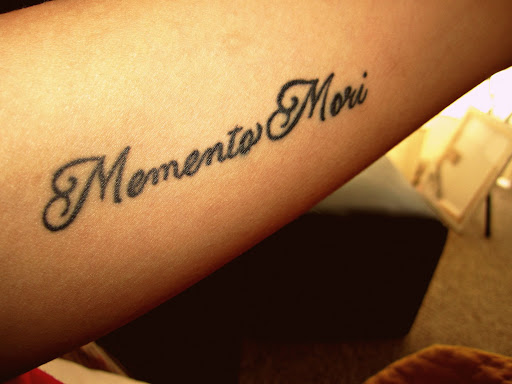
Memento Mori Latin Font
Memento mori, as said, is a latin phrase which was also engraved in jewelry. Directiononly strongly left to right glyphs + contains neutrals.
A memento mori (latin ‘remember that you [have to] bite the dust’) is an imaginative or symbolic reminder of the certainty of death.
Memento mori latin font. The articulation ‘memento mori’ created with the development of christianity, which stressed heaven, hell, and salvation of the spirit in the afterlife. Categories, lettering, fonts, typewriter font, quotes, latin quotes, “memento mori, si vis vitam. A latin phrase translating to remember that you must die.
Momento mori is a latin phrase that translates to remember death or remember you must die. Tattooist river · graffittoo · min kang. In this idea, the memento mori is written in cursive writing on the body part.
Memento mori is a latin phrase that means “remember that you will die”. An unus annus remembrance community dedicated to keeping the spirit and memories alive. ‘memento mori’ has been mentioned as an important principle by many people throughout history, and implementing it in your own life can benefit you in various ways.
Indicative memento mori tattoo design on arm; Memento mori font is handwriting font which is designed by maho cuevas. The gothic style is combined with a condensed feel and that gives a modern look.
Memento mori pirate coin ring made from pure copper coin. Mementomori typeface is a modern, blackletter font for display or medium look bodytext with a gothic theme. In latin, memento mori means “remember you must die.” because death tends to be unpredictable, memento mori encourages us to live fully without wasting precious time and be prepared for it when it comes.
It is inspired by the heavy metal band; Riders on the storm design. Memento mori (latin 'remember that you [have to] die') is an artistic or symbolic reminder of the inevitability of death.
Memento mori free font is a typeface inspired by the scrip tattoo style, created by ricardo saul castellanos pabello “richie mx” in the design studio “riders on the storm design”. Unus annus is not the only thing that ends. Furthermore, many people choose this tattoo idea because they love to get fonts to get inked instead of getting any pattern or design.
The concept has its roots in the philosophers of classical antiquity and christianity, and appeared in funerary art and architecture from the medieval period onwards. What is a memento mori ring? The phrase says ”remember that you will die” and it was also described as mourning jewelry which was popular in the 18th century.
The most common motif is a skull, often accompanied by one or more bones. You can save the memento mori latin font here. Memento mori free font is a demo and for personal use only.
Version version 1.00 february 25, 2018, initial release. We have got 13 pix about memento mori latin font images, photos, pictures, backgrounds, and more. Top 14 memento mori tattoo designs 1.